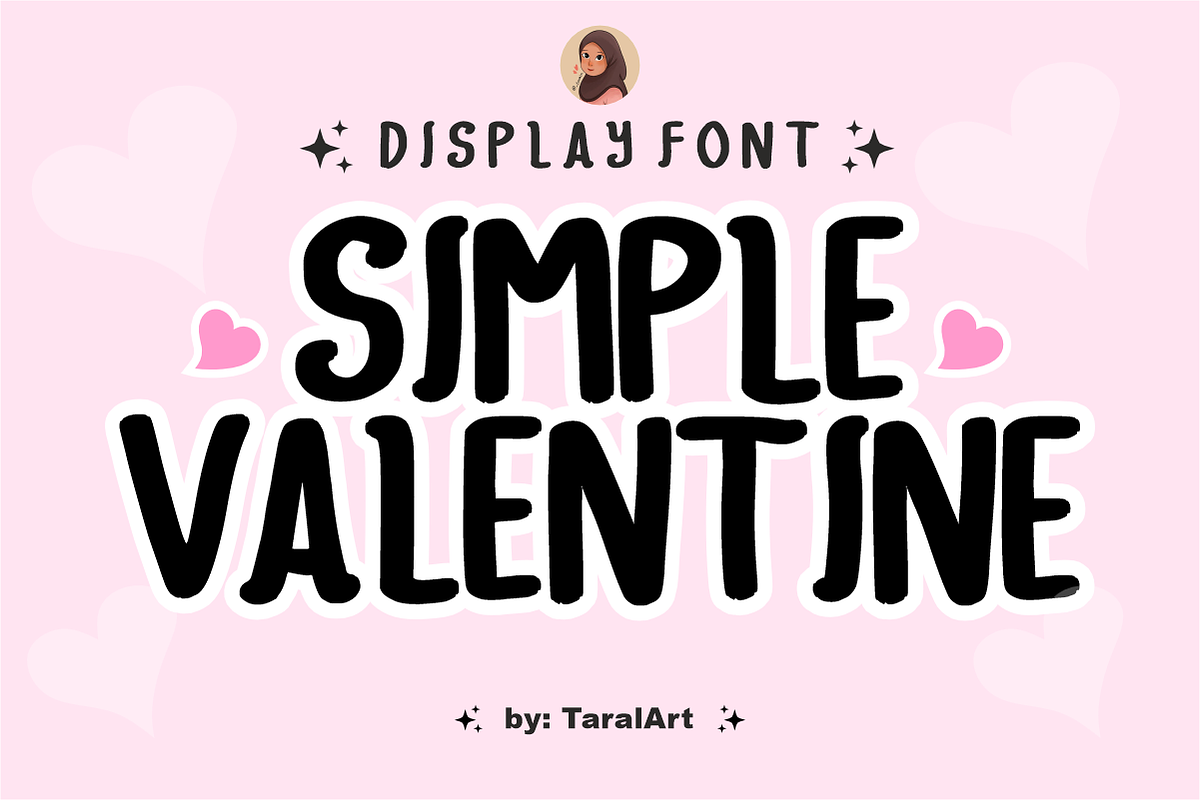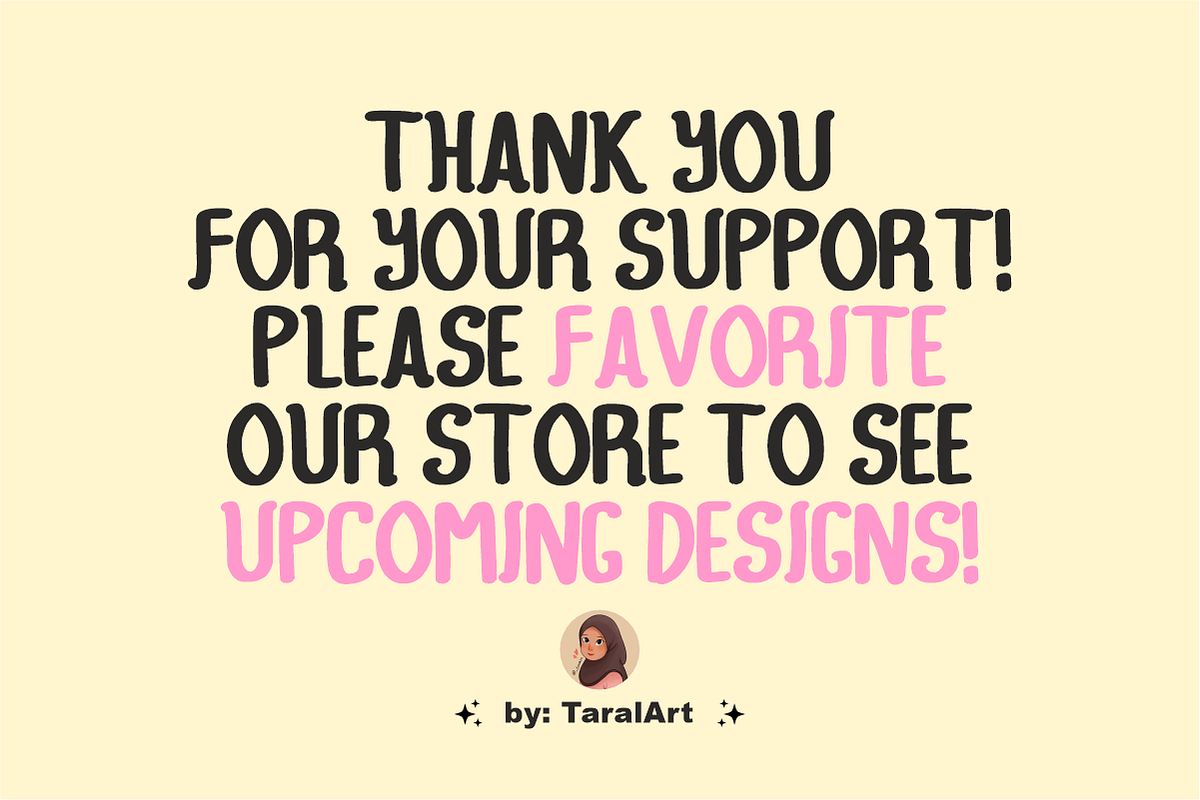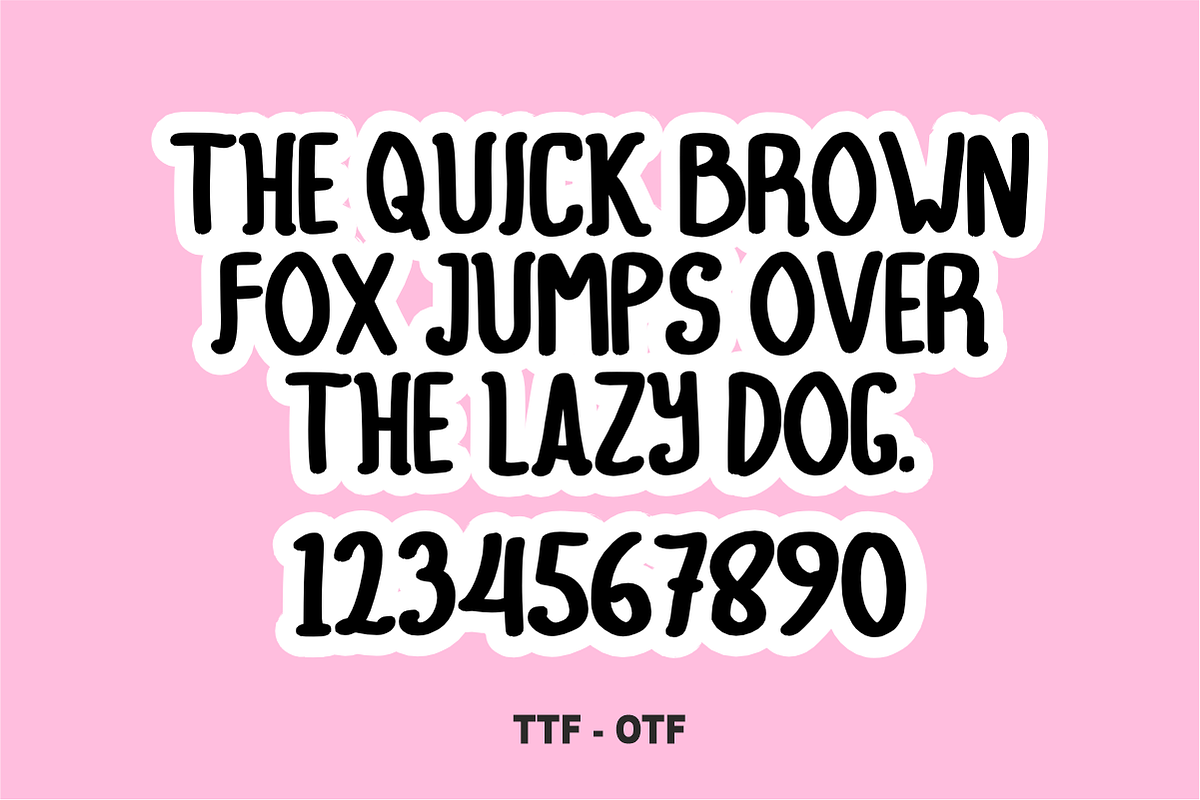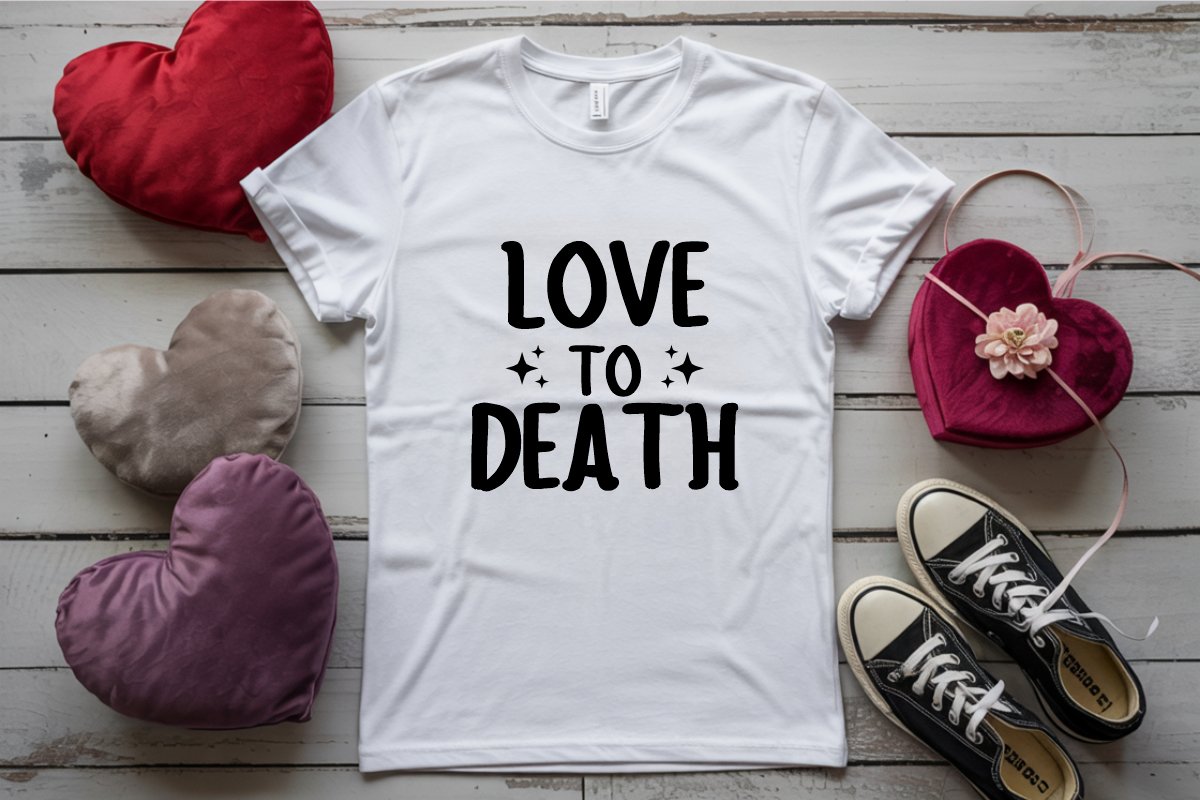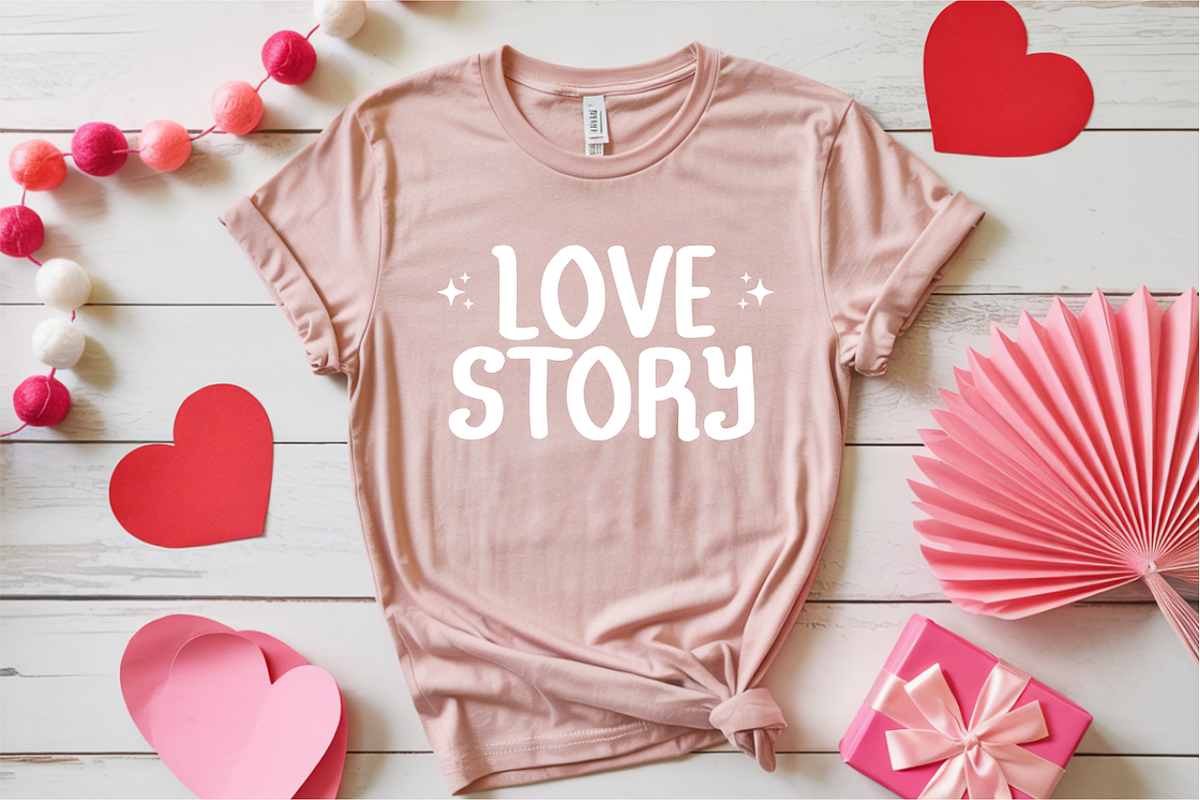
Simple Valentine - Cute Love Font
Simple Valentine is a sweet, tall handwritten display font that brings a playful, cozy charm to your creative projects. Featuring bold, uniquely hand-drawn lines with a soft bounce, this versatile font is perfect for holiday cards, romantic notes, and daily crafts. Every character is cleanly vectorized to guarantee smooth, effortless cutting on Cricut and Silhouette machines.
Uppercase Character Set
Numbers & Basic Punctuation